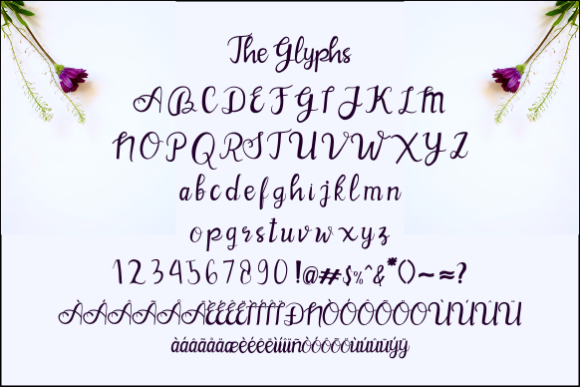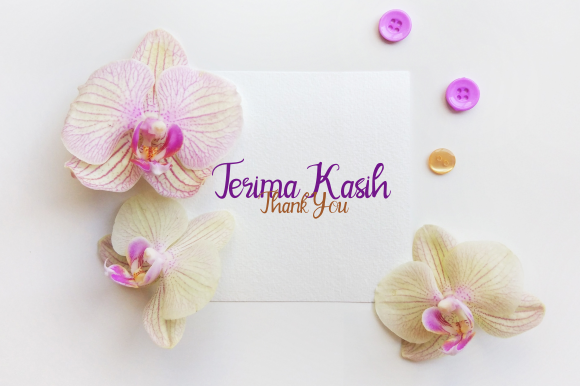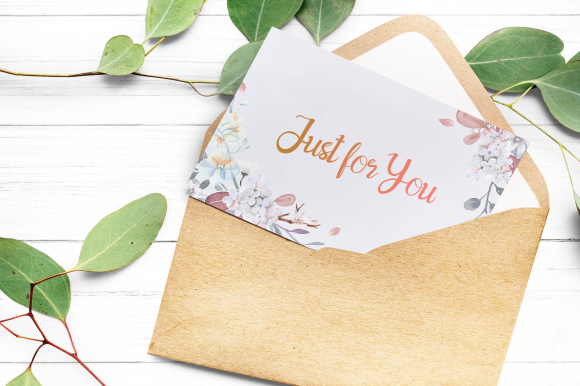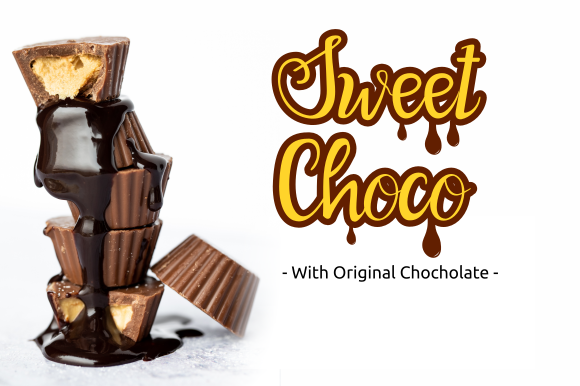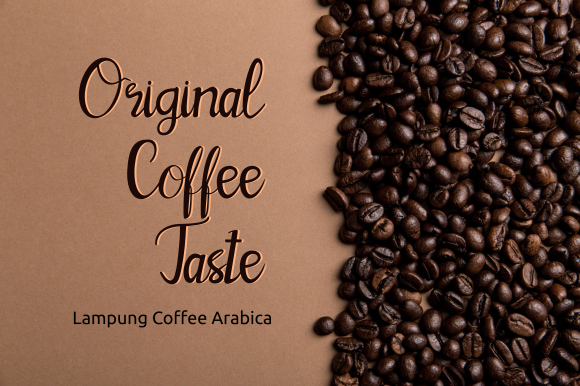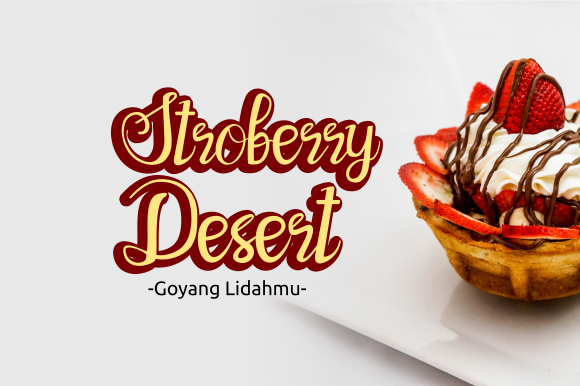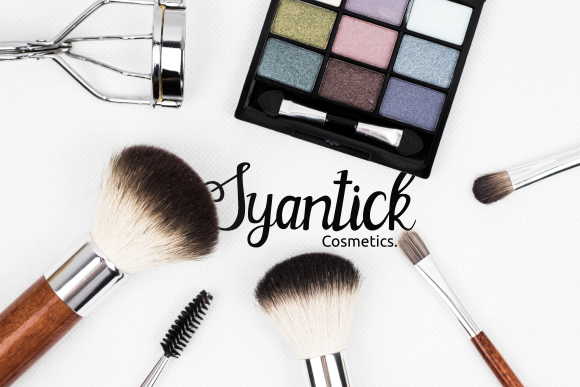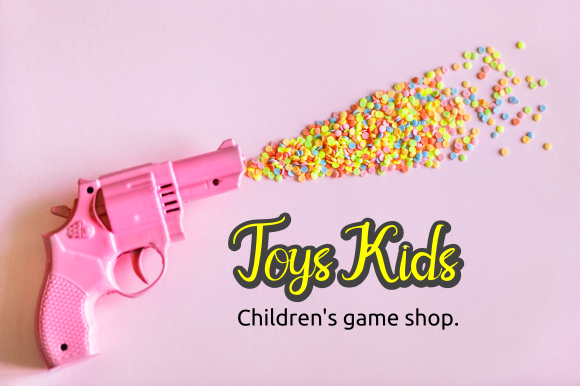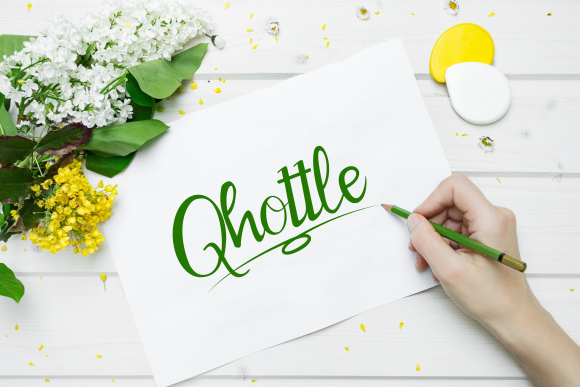
Blink Pink Font
About Blink Pink Font
Blink Pink is a carefully crafted handwritten font with a lovely charm. Fall in love with its authenticity, and turn any design project into a stand out!